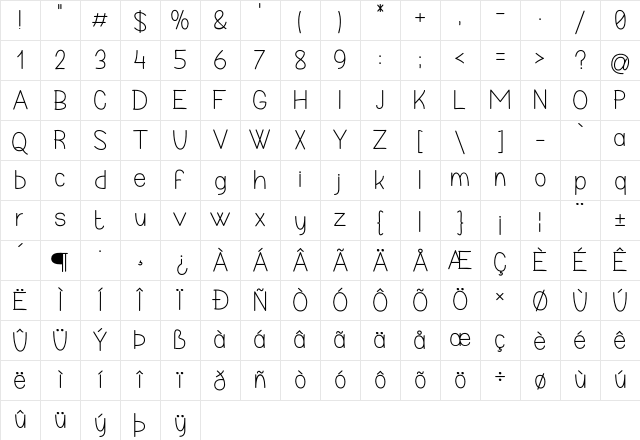
Realize My Passion Regular
Foundry: Paulo R
Designer: Paulo R
Design Context for Realize My Passion
Realize My Passion is a composed and adaptable typeface that performs quietly and consistently across a wide range of design contexts.